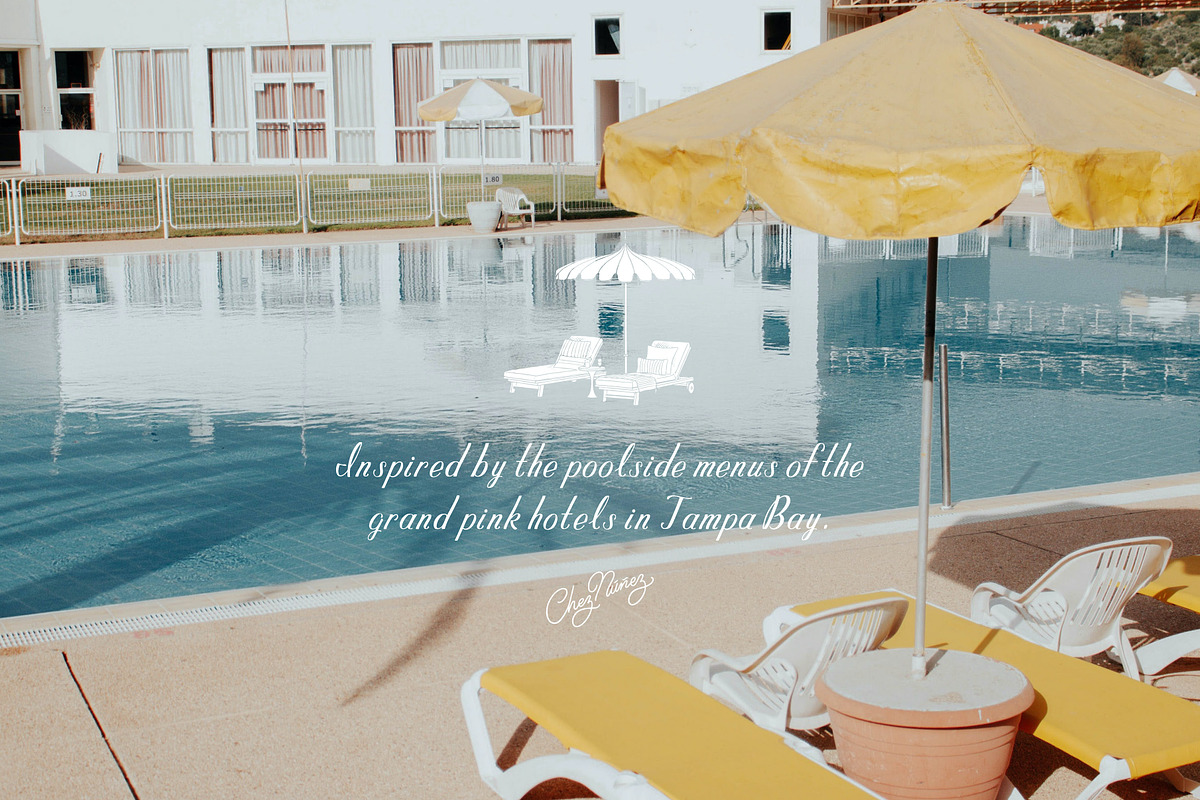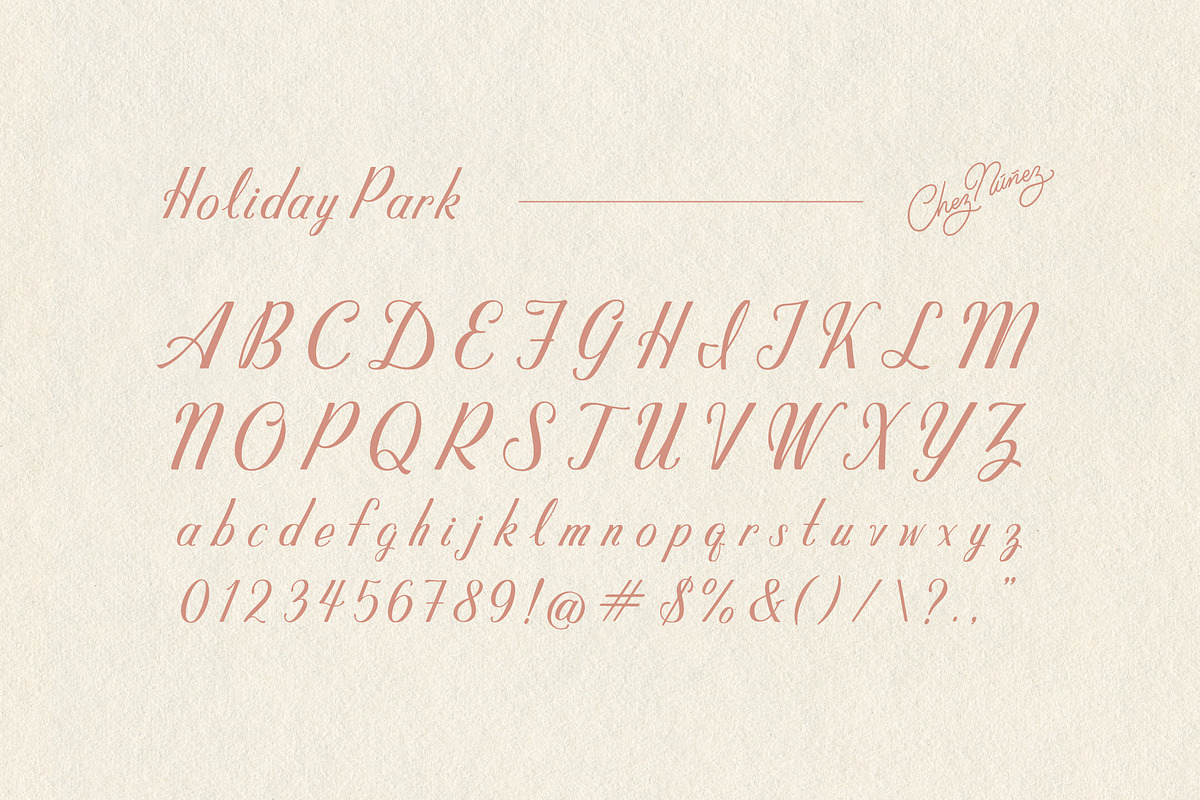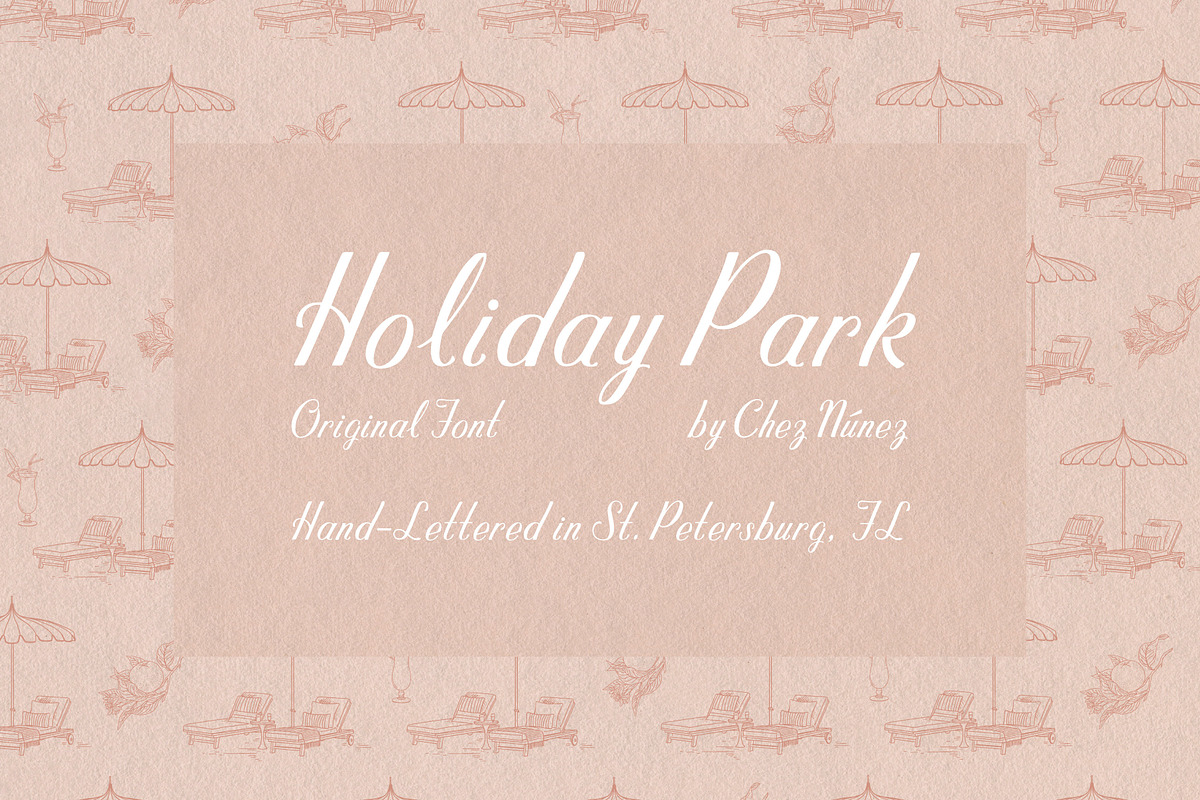
HOLIDAY PARK: Vintage Florida Hotel
A graceful italic typeface, inspired by the grand pink hotels of Tampa Bay, FL, and tropical cocktails by the pool.
- Standard Latin Characters + Numericals - lettered by hand, by Anna Núñez
- Punctuation, Mathematical Symbols, and Spanish accent marks - lettered by hand, by Anna Núñez
- 1 weight: REGULAR